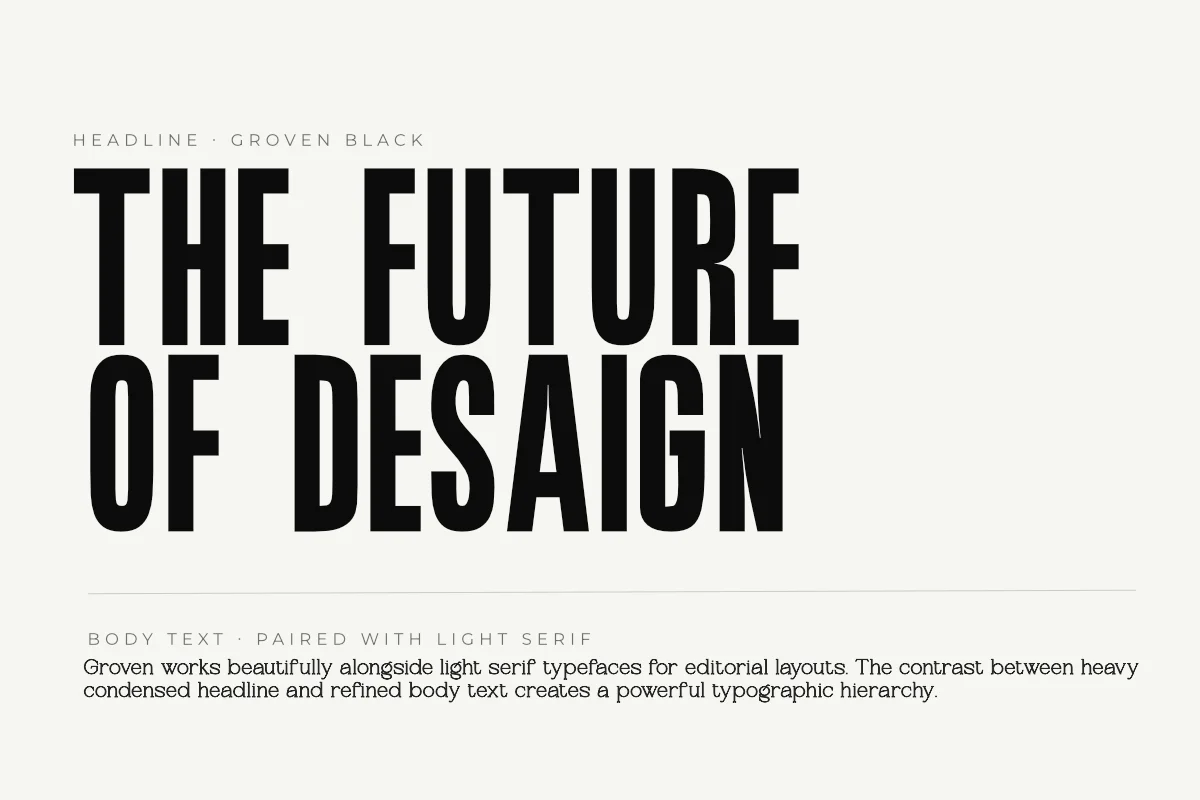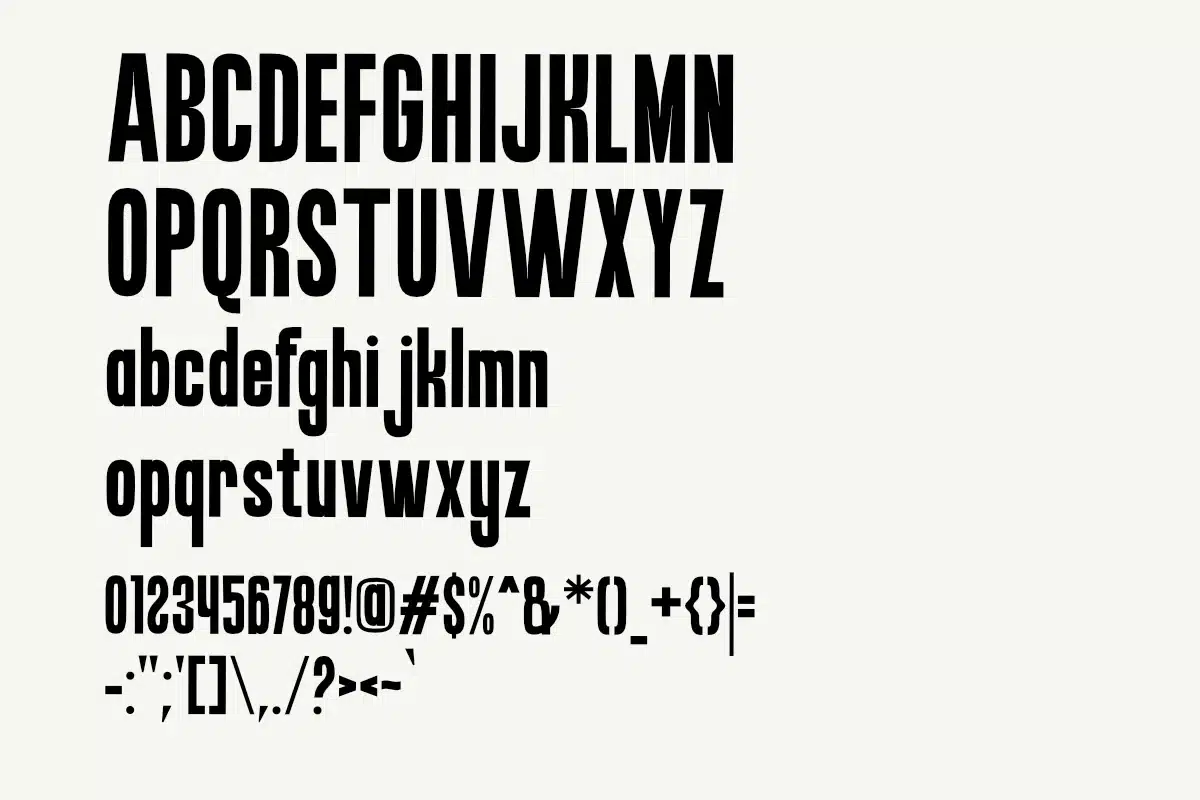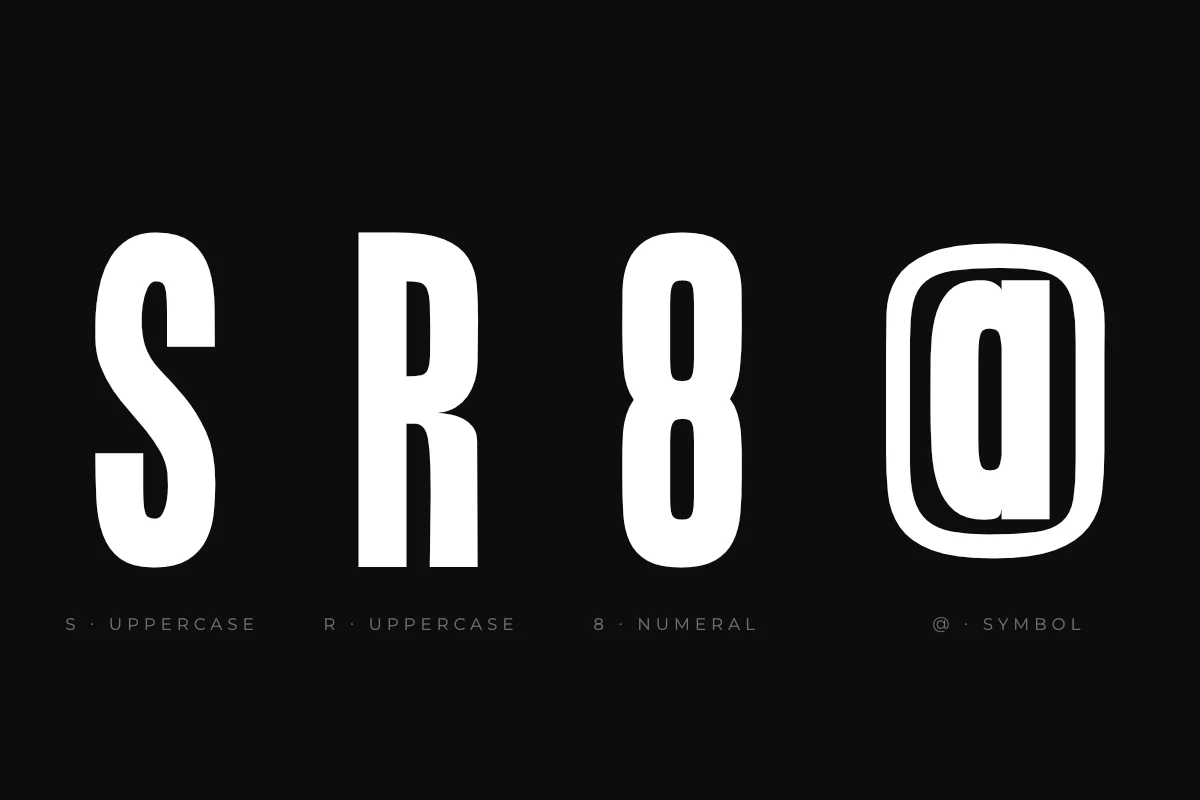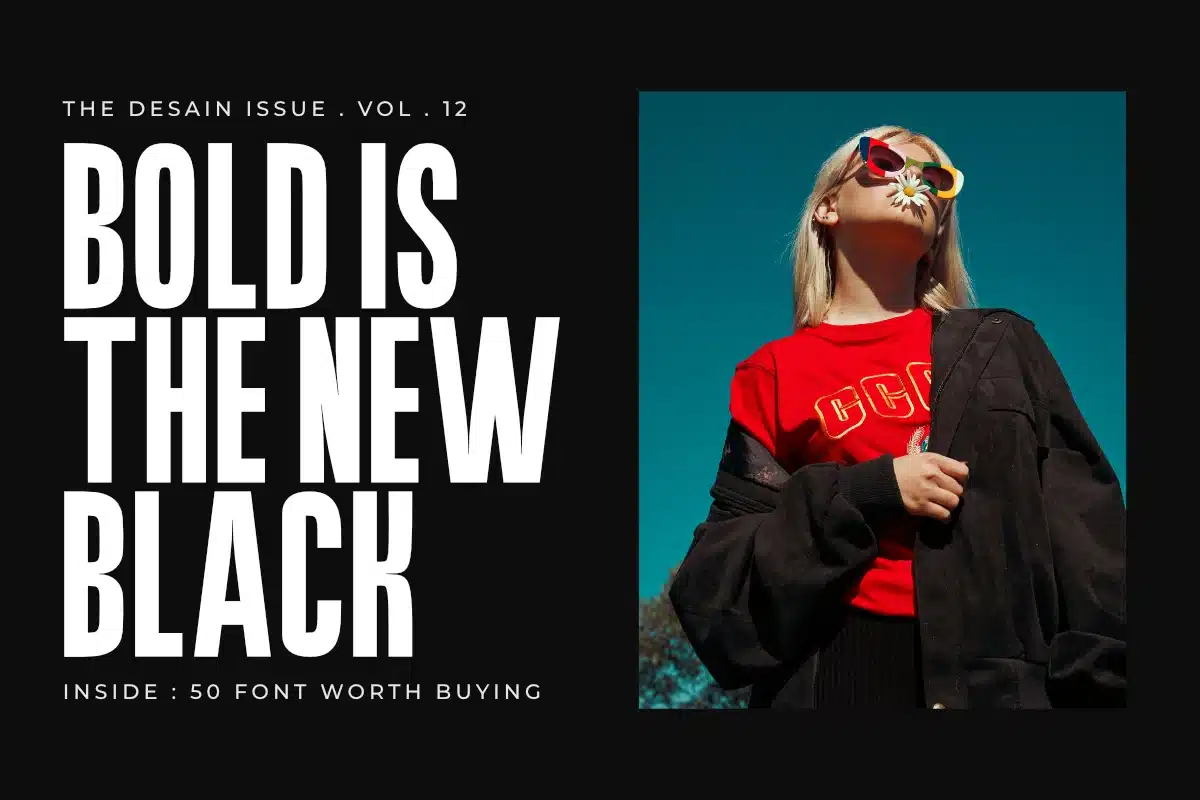
Groven – Bold Condensed Display Typeface Font
Groven is a bold condensed display typeface designed with extreme narrow proportions, flat terminals, and a heavy black weight. This typeface delivers a striking and powerful look, making it ideal for sports branding, poster design, and editorial headlines.
Carefully crafted with tight apertures and uniform stroke weight, Groven brings a strong neo-grotesque character to game titles, event posters, packaging, and high-impact typographic compositions.
• Uppercase & lowercase characters
• Numerals & punctuation
• Extreme condensed proportions
• Flat terminal details
• Heavy black weight
• Neo-grotesque display style